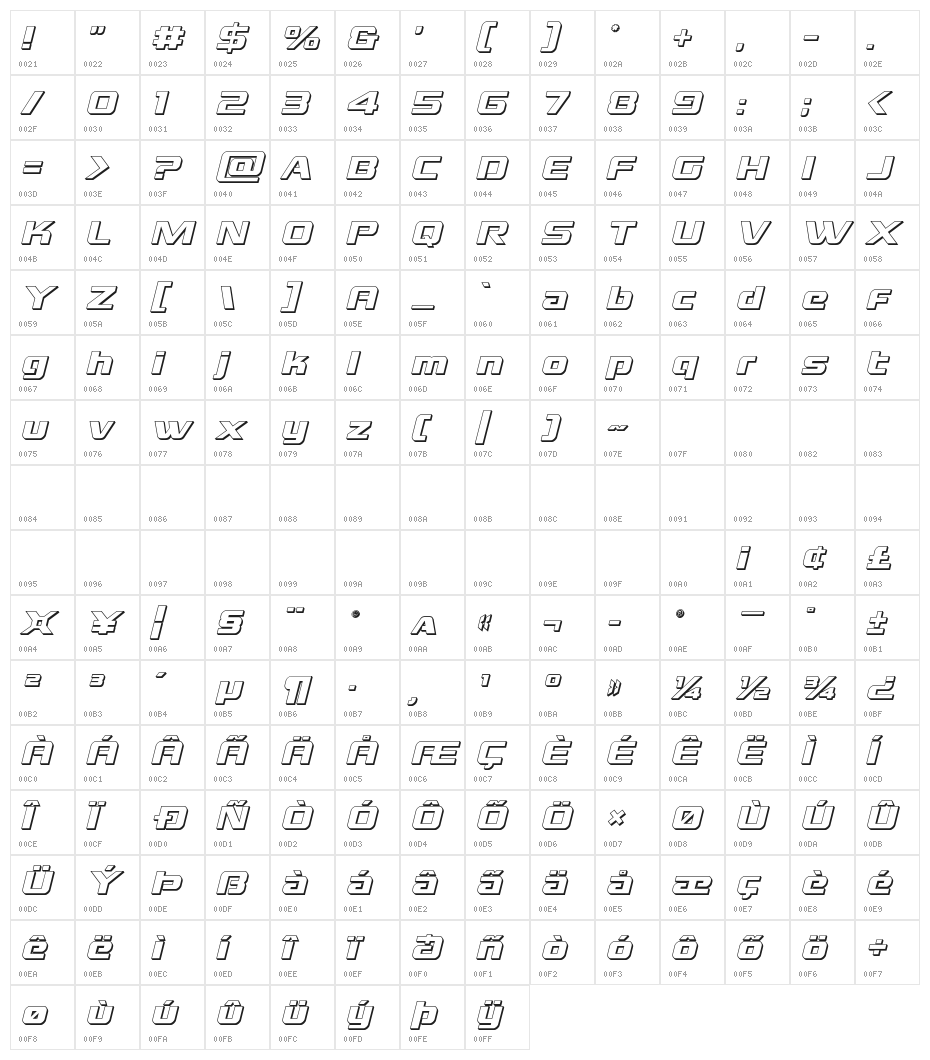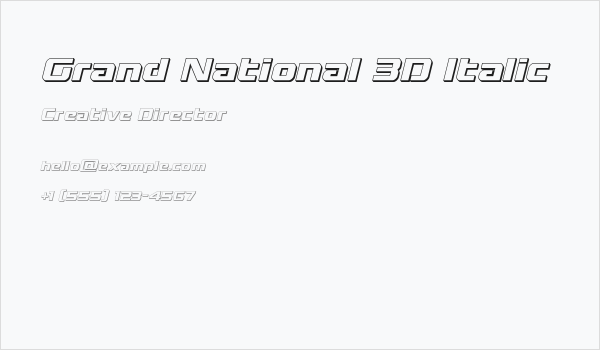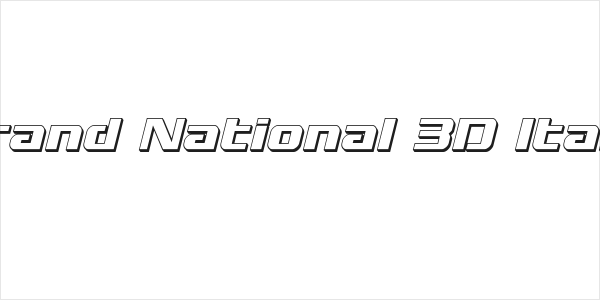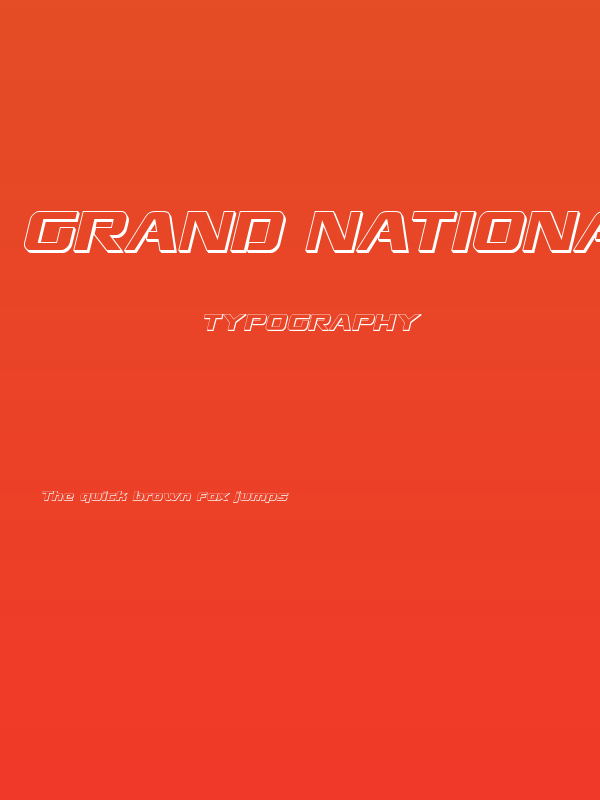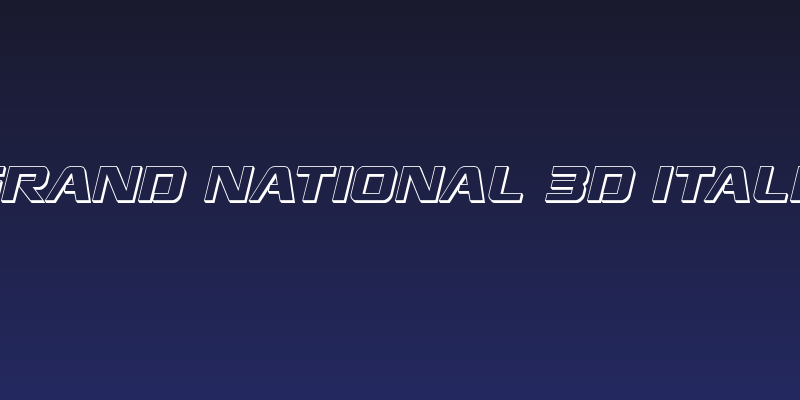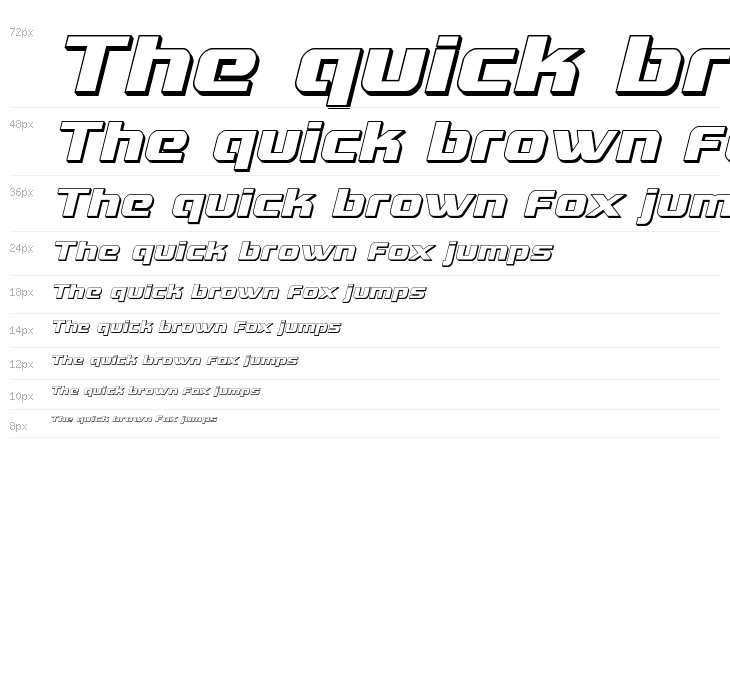
Grand National 3D Italic Font
Grand National 3D Italic Description
This font features a bold, three-dimensional design with an italic slant, giving it a dynamic and modern appearance. The characters are outlined, creating a sense of depth and movement. The uppercase and lowercase letters maintain a consistent style, with sharp angles and clean lines. The numerals and special characters follow the same aesthetic, ensuring uniformity across all elements. This font's unique 3D effect makes it stand out, making it ideal for projects that require a strong visual impact.
| Proposed Projects | Ideal for branding, posters, video game graphics, and any project needing a striking, modern typeface. |